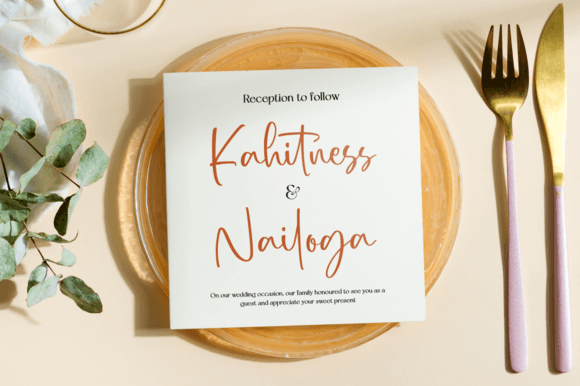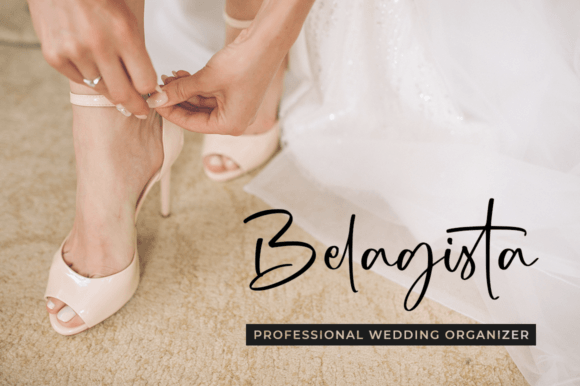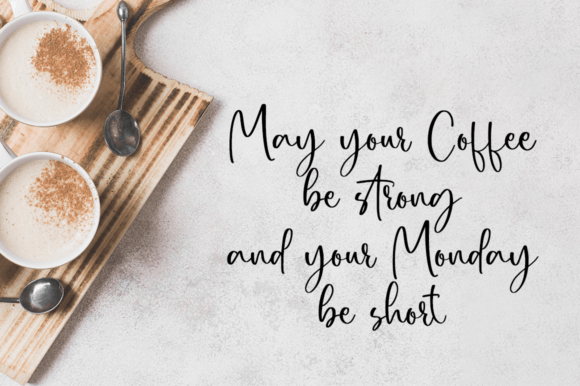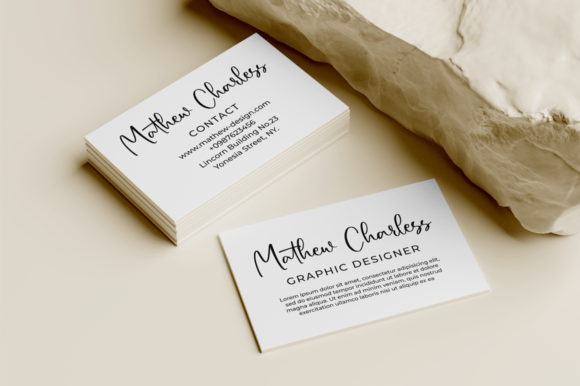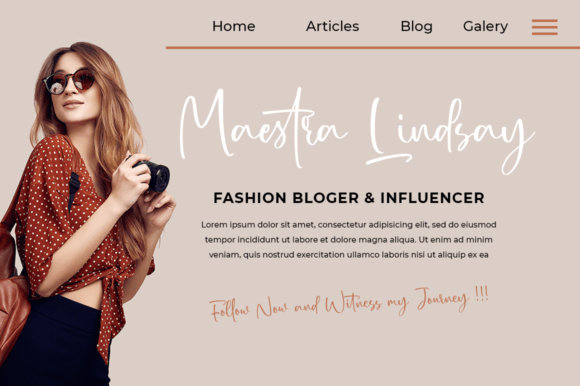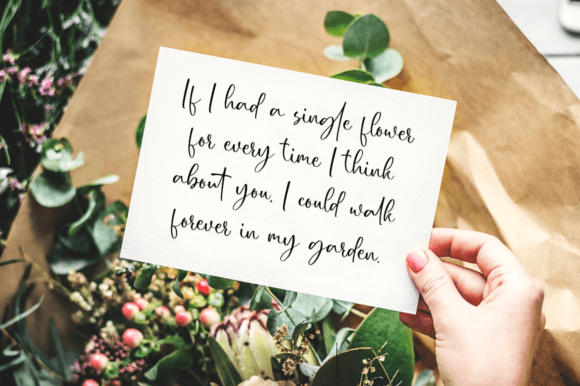
Introduction to Leichester Font
Remember that moment when you’re working on a creative project and you just can’t seem to find the perfect font to give it that extra oomph? You scroll through font libraries, trying to find something that screams high quality and sophistication, but nothing seems to fit quite right.
Well, put your search to rest because we’ve got just the thing: the Leichester Font. This stunning script font is a game-changer for designers, offering a beautiful and light feel that’s sure to elevate any design project. Whether you’re working on a personal or commercial project, the Leichester Font is an invaluable resource that’s sure to impress.
Key Features of Leichester Font
- Unique, modern design with a transparent background, perfect for digital and print applications
- Includes a wide range of glyphs and characters, suitable for various languages and scripts
- Designed with a high resolution of 300 DPI, ensuring crisp and clear text rendering
- Perfect for use in graphic design, web design, and other creative applications where a modern, clean font is required
Honest Review: Leichester Font
I recently stumbled upon the Leichester Font, and I must say it’s been a great addition to my design resource library. This high quality font has been a game-changer for my creative projects.
What works well about the Leichester Font is its versatility. It comes with a transparent background, making it easy to overlay on different images and backgrounds. The font also offers a wide range of styles, from bold to thin, giving designers the freedom to experiment with different looks.
Here are some of the key features I like about the Leichester Font:
- Transparent background for easy overlay
- Wide range of styles
However, there are some limitations to consider. The font may not be suitable for all design projects, especially those that require a more traditional or formal look.
Overall, I’m impressed with the Leichester Font. It’s a great resource for designers who want to add a unique touch to their creative projects. With its high quality design and transparent background, it’s definitely worth checking out.
The Leichester Font is a high-quality design resource that offers a unique and creative style. This free download is perfect for designers and artists looking to add a touch of sophistication to their projects.
To get the most out of the Leichester Font, use it on a transparent background to create a subtle and elegant look. You can also use the font in combination with other design elements to create a unique and creative project.
The Leichester Font is perfect for use in creative projects, such as logo design, typography, and branding. It’s also great for use in digital media, such as social media graphics and website design.